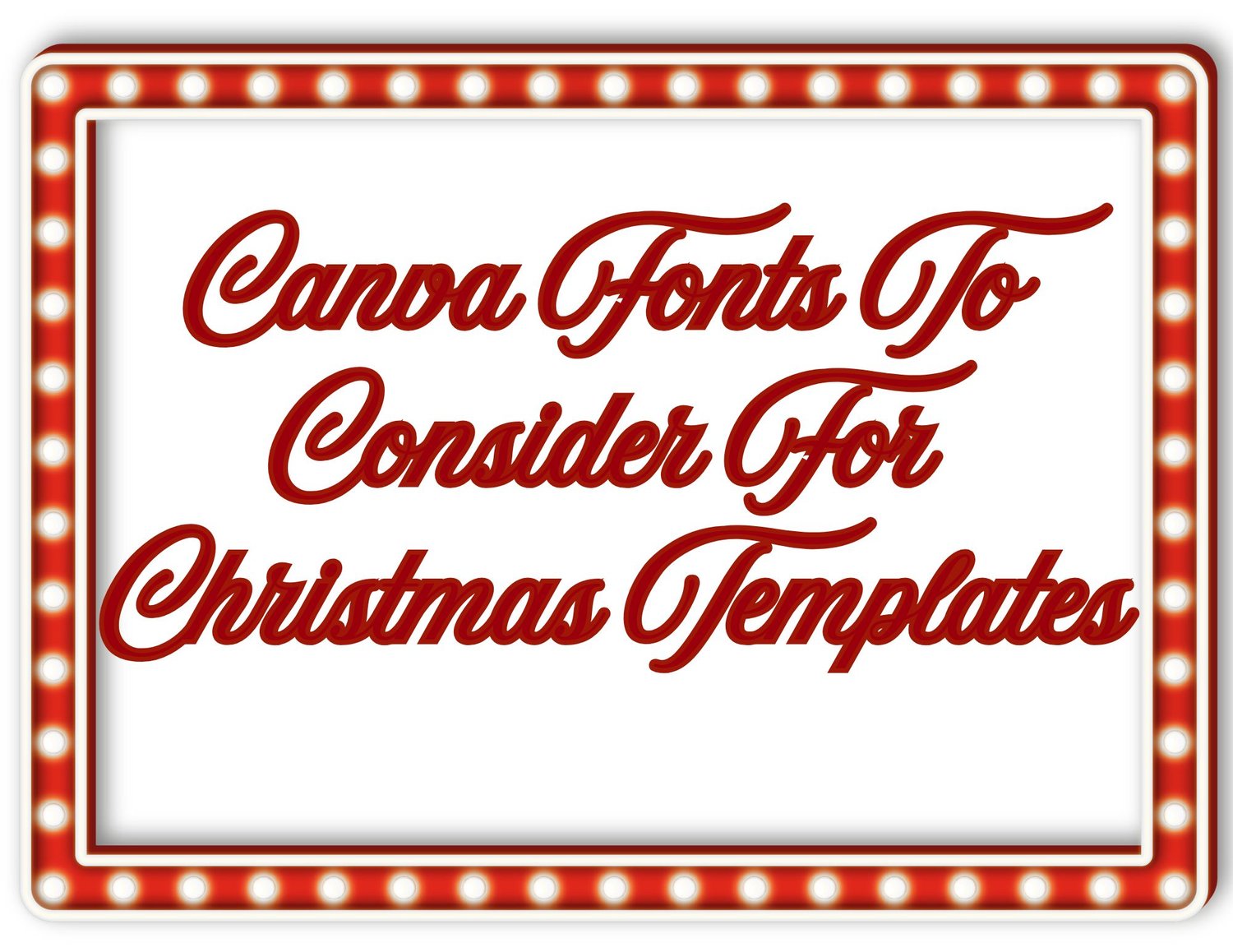
We are not posting some bland, dusty video about fonts. No. This is to the point, fresh and fabulous. We are gonna show you some fonts that work extremely well with your Christmas templates so you can strut like royalty on any social media when you drop your template.